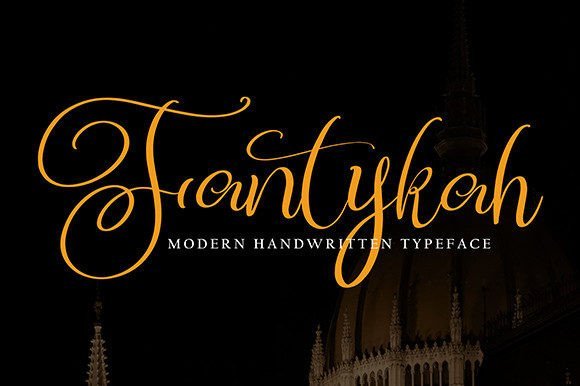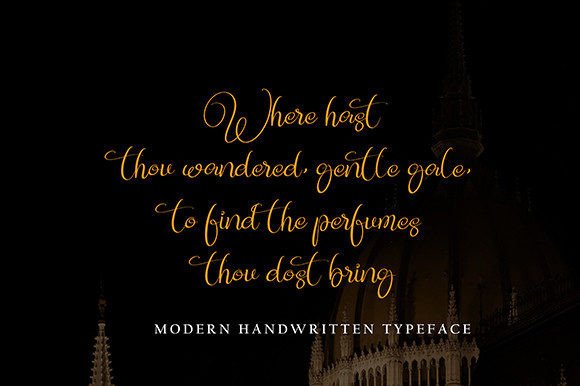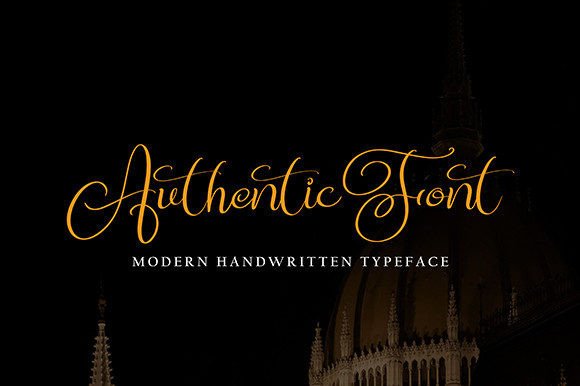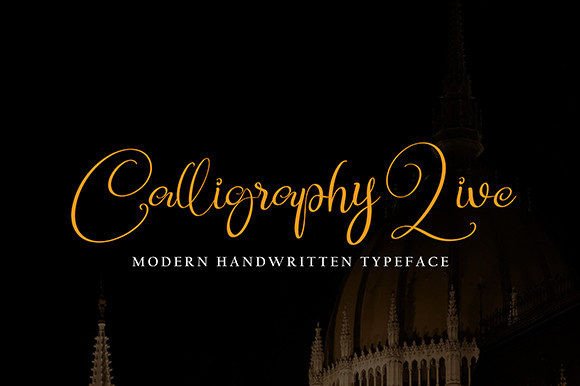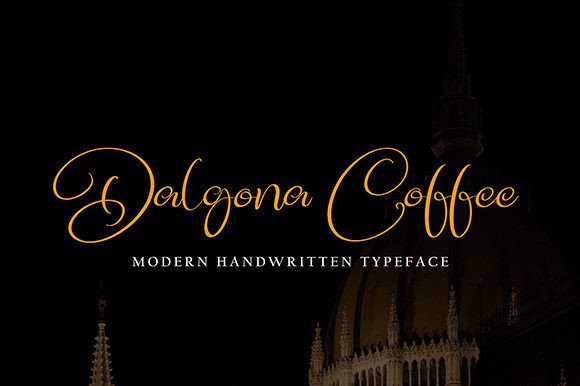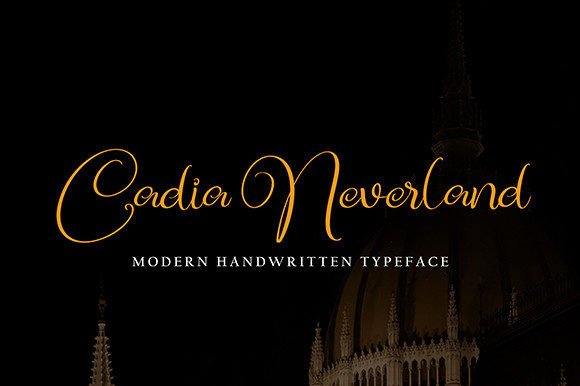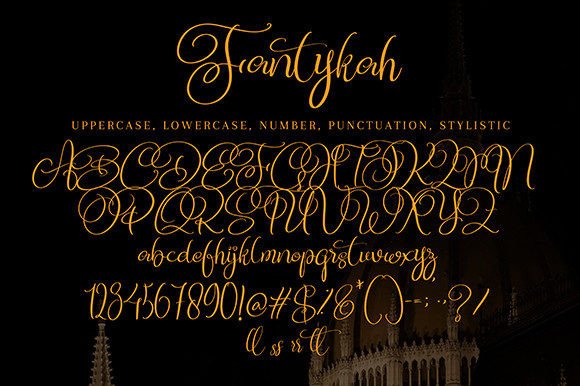
Bringing Your Designs to Life with the Perfect Font
As designers, we’ve all been there – staring at a blank page, searching for that one special element to elevate our creation to the next level. The perfect font can make all the difference, and for many of us, that moment of discovery is a thrill like no other. It’s the instant when the words start flowing, the ideas begin to take shape, and the design starts to come alive.
Enter the Fantykah Font, a lovely and timeless handwritten font that’s sure to capture your heart. With its unique and beautiful touch, this font is the perfect choice for creating eye-catching logos, branding, and quotes that leave a lasting impression. Whether you’re a seasoned designer or just starting out, the Fantykah Font is a valuable addition to your toolkit, offering endless possibilities for creativity and self-expression.
Fantykah Font Key Features
- Font Family: Fantykah Font is a unique, handwritten font family designed to add a touch of elegance and sophistication to any design.
- Character Count: The font family includes over 1,200 characters, including uppercase and lowercase letters, numbers, punctuation, and special characters.
- Resolution and Size: Designed to be highly scalable, Fantykah Font is suitable for use in various resolutions and sizes, from 12pt to 200pt and beyond.
- Unique Characteristics: The font features a distinctive, hand-drawn aesthetic with subtle imperfections, giving it a warm and organic feel.
Fantykah Font Review
I recently had the chance to work with the Fantykah font, and I must say it’s a mixed bag. ✨ Here are some things that work well:
- Unique aesthetic: Fantykah has a distinct, whimsical feel that’s perfect for projects that need a touch of magic.
- Legibility: Despite its playful appearance, the font is surprisingly easy to read, even at smaller sizes.
- Limited font weight options: Fantykah only comes in a few weights, which can make it tricky to achieve the desired level of emphasis.
- No italic or oblique styles: If you need to add a bit of flair to your text, you’re out of luck.
- May not be suitable for formal projects: Fantykah’s playful vibe may not be the best fit for professional or academic work.
Overall, I think Fantykah is a solid choice for projects that need a dash of personality, but it’s not the most versatile font out there. If you’re looking for something with a bit of flair, Fantykah might be worth a try. Just be aware of its limitations and use it wisely.
Tips for Getting the Most Out of Fantykah Font
For optimal results, use Fantykah Font in combination with bold or italic styles to add emphasis.
Experiment with different font sizes to create visual hierarchy and balance.
Fantykah Font is ideal for:
- Typography-heavy designs, such as posters and brochures.
- Creating a unique and eye-catching brand identity.
- Adding a touch of elegance and sophistication to your designs.
Alternatives to Fantykah Font for Designers
Great Vibes Font is a modern, elegant script font designed by Handmade Font. It is ideal for creating a whimsical and romantic atmosphere in designs, especially for wedding invitations, greeting cards, and other feminine projects.
Compared to Fantykah Font, Great Vibes Font has a more delicate and cursive feel, making it suitable for projects that require a softer, more elegant look. While Fantykah Font has a more playful and quirky vibe, Great Vibes Font is perfect for designs that need a touch of sophistication and romance.
Carolyna Pro Font is a beautiful, high-end script font designed by Alejandro Paul. It is ideal for creating a luxurious and elegant atmosphere in designs, especially for high-end branding, advertising, and packaging projects.
Q: What is the recommended font size for optimal legibility with the Fantykah Font?
For optimal legibility, we recommend using the Fantykah Font at a minimum size of 12 points for body text and 18 points for headings. However, font size may vary depending on the specific design requirements and target audience.